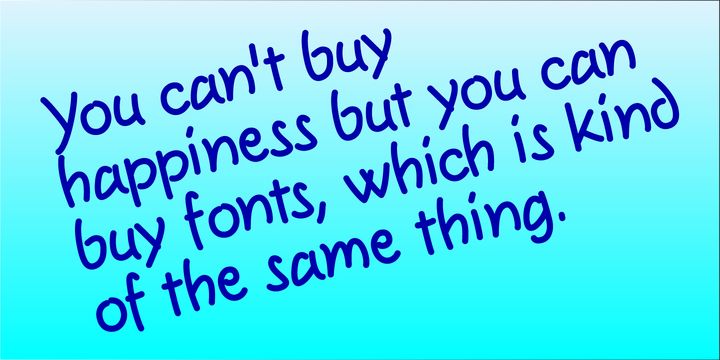
Sweet Hand is a hand drawn font published by Gerald Gallo Fonts.
Sweet Hand was inspired by casual, neat hand lettering. It is casual and informal and is ideal for use in conveying these qualities. It is excellent for casual text and at large sizes an effective casual display font. The font includes upper and lowercase alphabets, numbers, punctuation, accented characters, symbols, and miscellaneous characters.